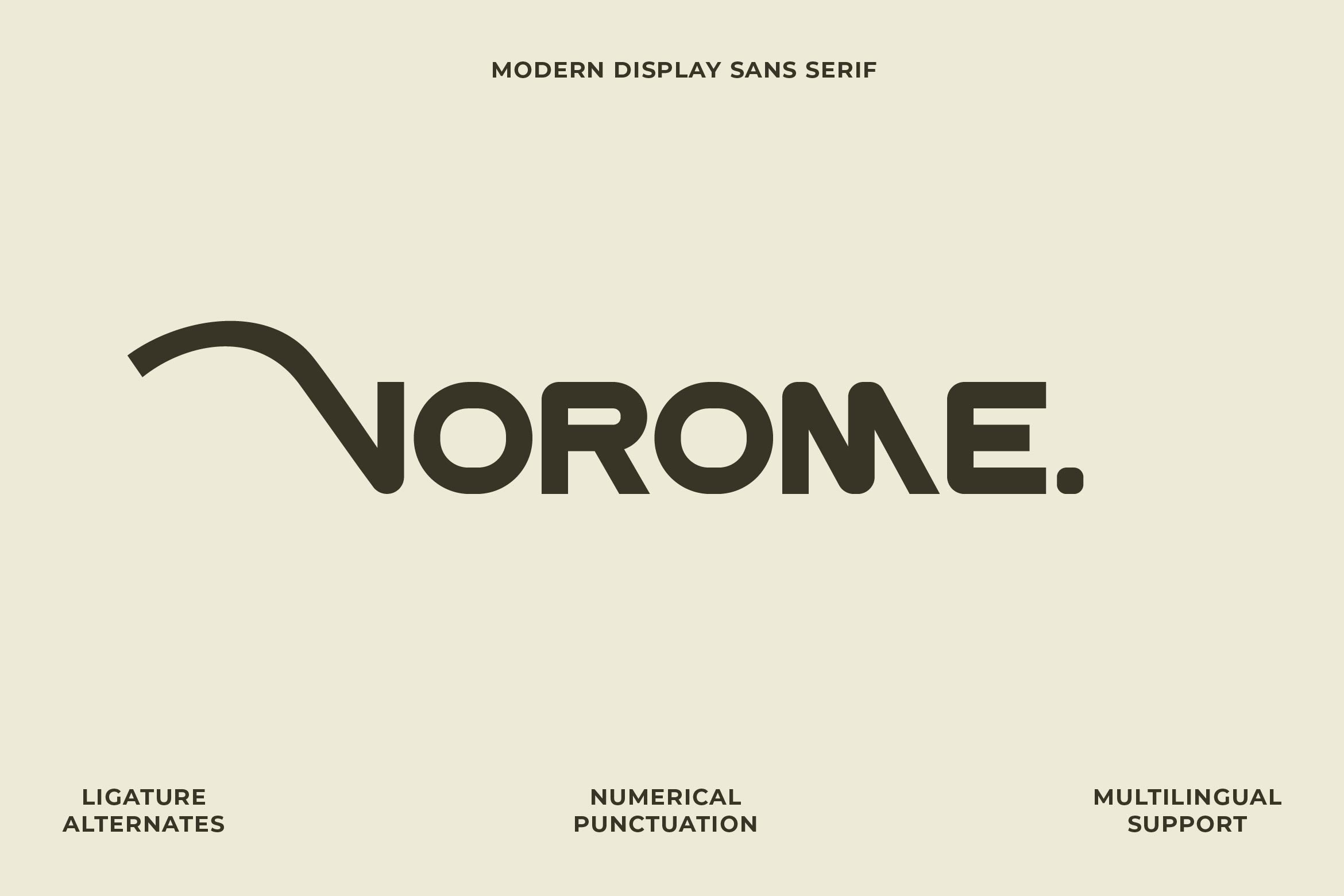
- Vorome Bold Sans Serif Font
Vorome is a bold sans serif font designed to bring power, clarity, and contemporary style to your typography. With its thick strokes, solid structure, and clean geometric lines, Vorome is ideal for impactful headlines, branding, posters, sports graphics, packaging, and advertising campaigns that need a strong visual presence.
Its confident design ensures excellent readability across all sizes and media, making it versatile for both print and digital projects. Vorome’s bold yet refined appearance gives your designs a modern, professional, and timeless touch.
The font includes uppercase and lowercase letters, numerals, punctuation, multilingual support, and stylistic alternates for flexible customization and unique typographic compositions.
Make your message loud and unforgettable with Vorome — the strong sans serif font that blends modern power, precision, and visual impact.